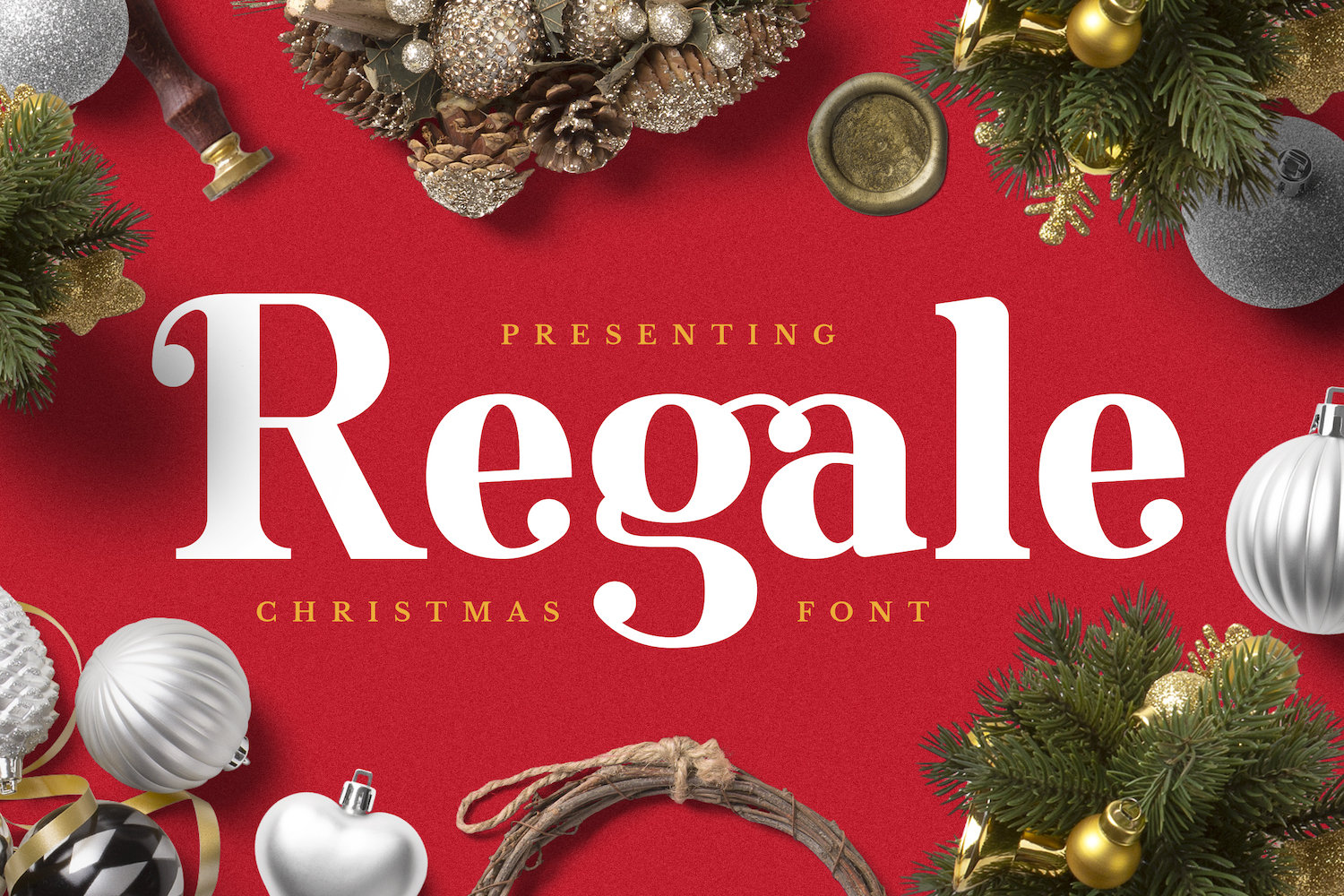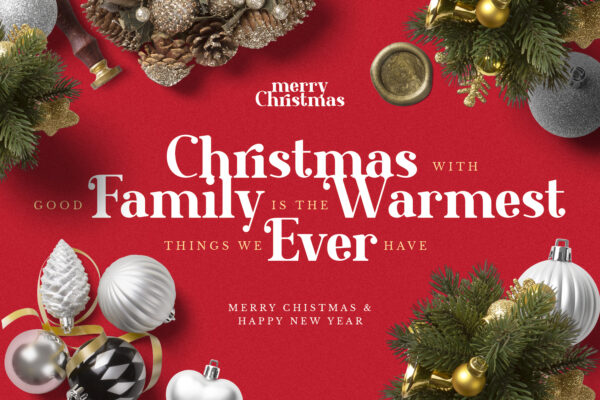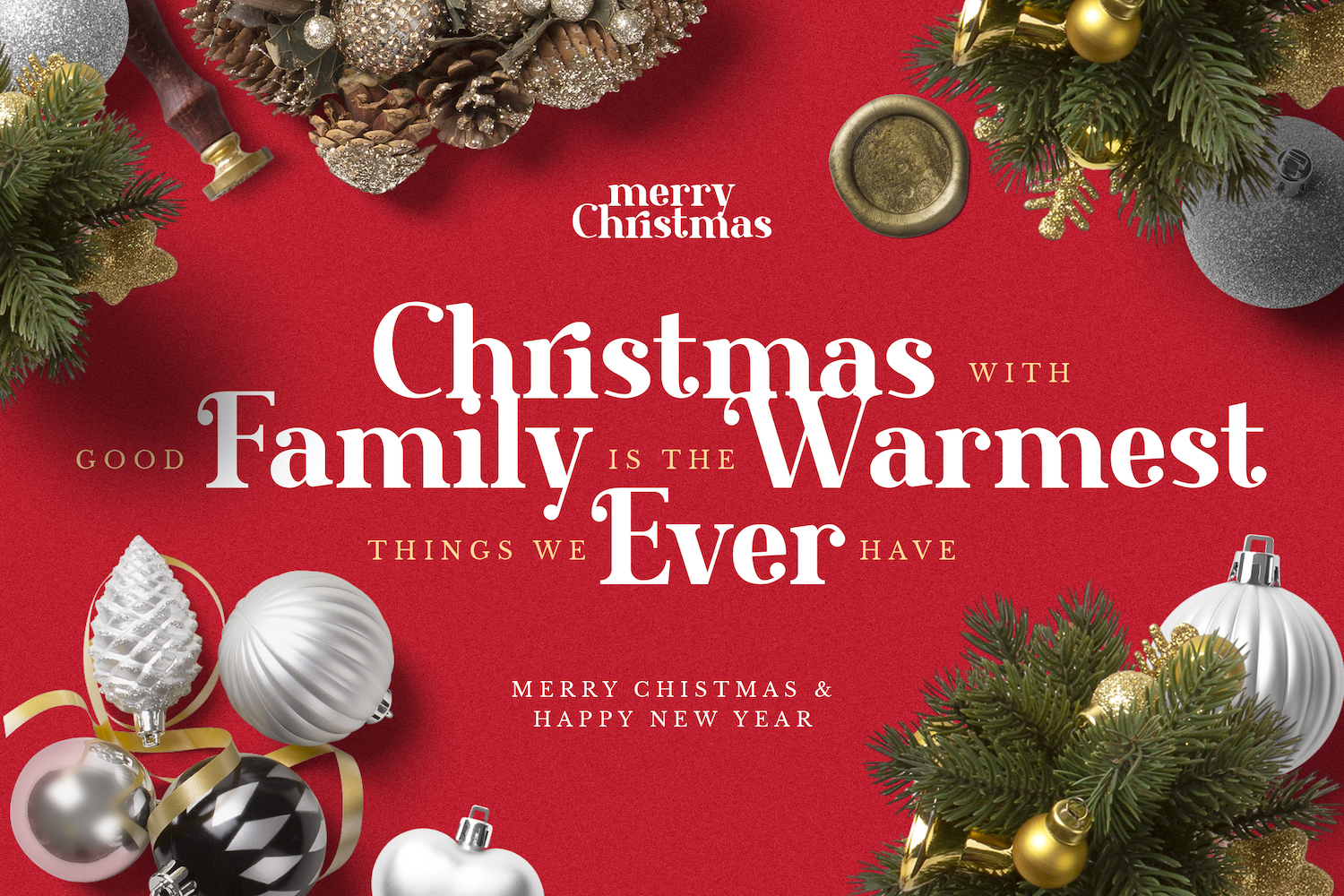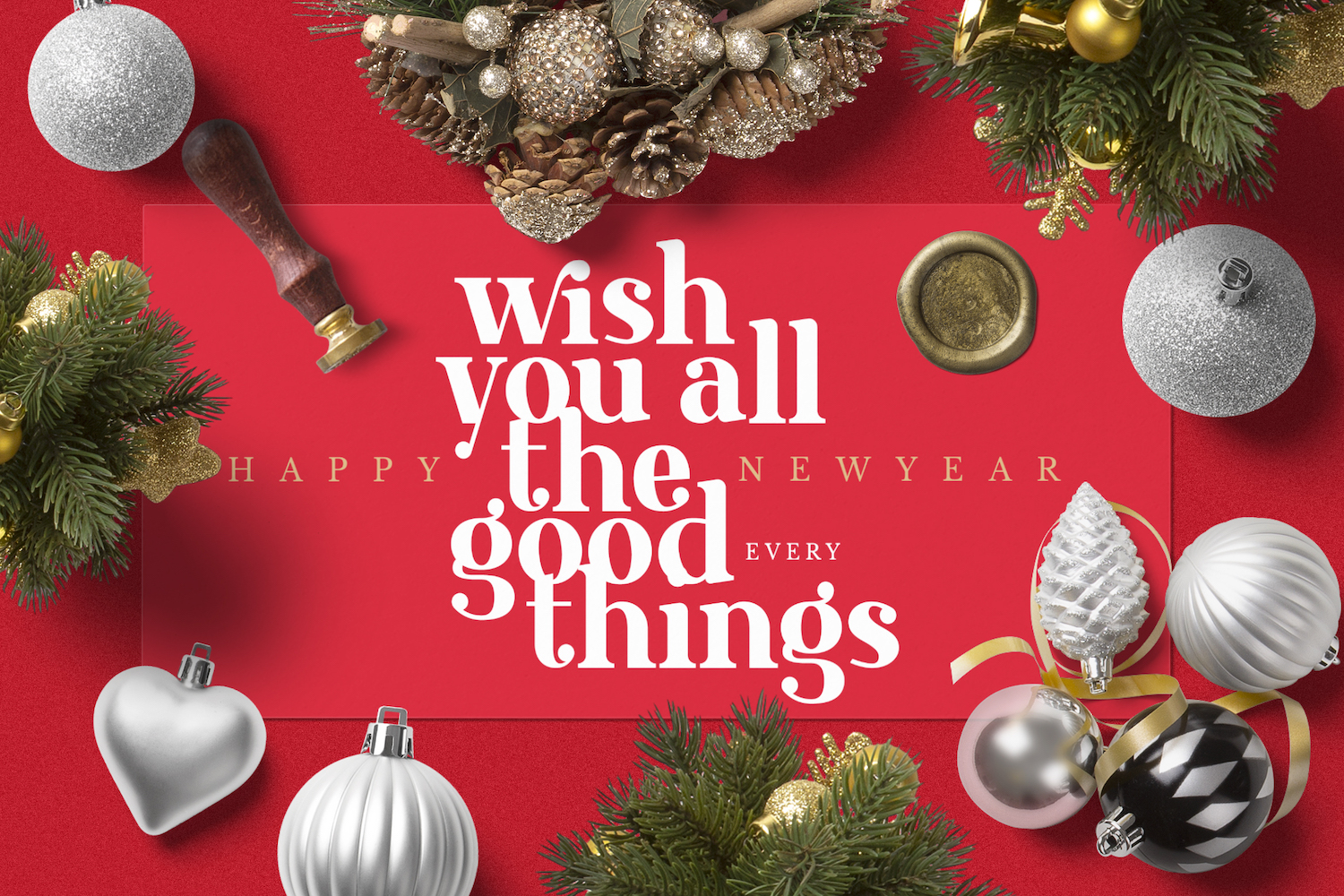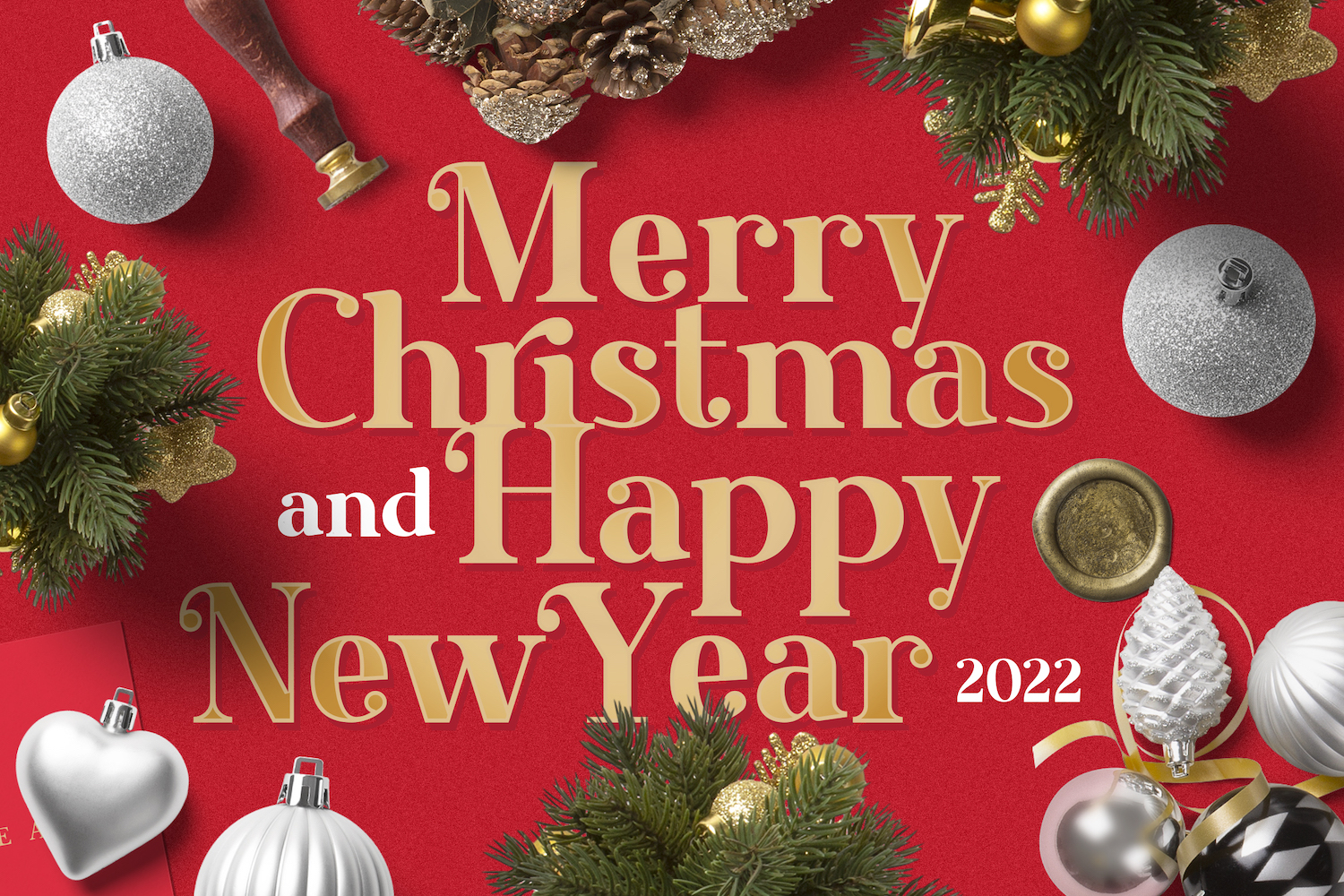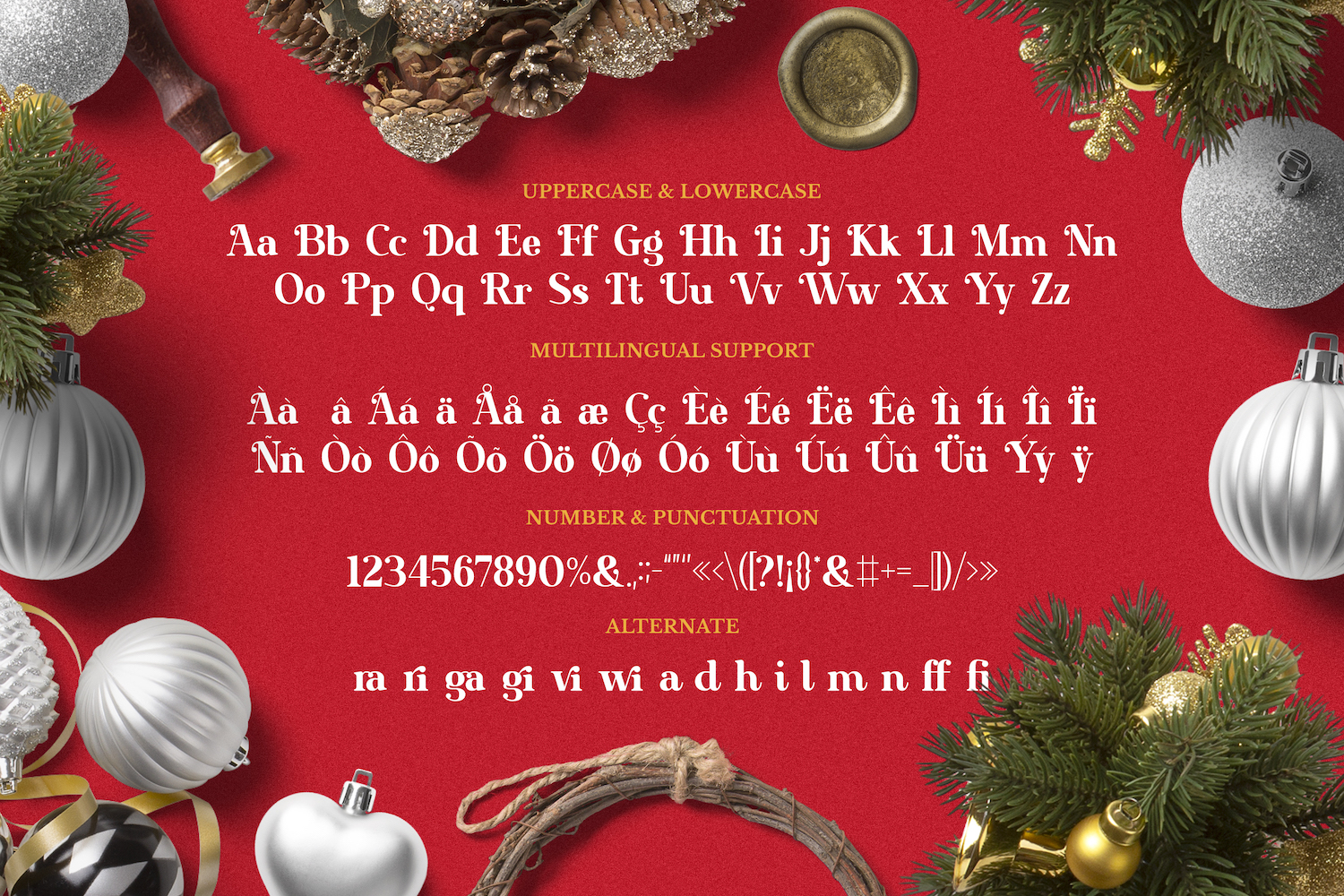
Regale is a modern serif Christmas font with a luxurious and classic design that adds a festive elegance to any holiday project. It features refined high-contrast strokes with unique alternates and multilingual characters, making it a versatile choice for everything from greeting cards and packaging to winter branding and event promotions.
With its decorative curves and professional letterforms, Regale stands out as a premium serif font perfect for Christmas themes. Whether you’re designing a holiday logo, seasonal invitation, or stylish social media post, Regale delivers both warmth and sophistication to elevate your creative work.
Regale